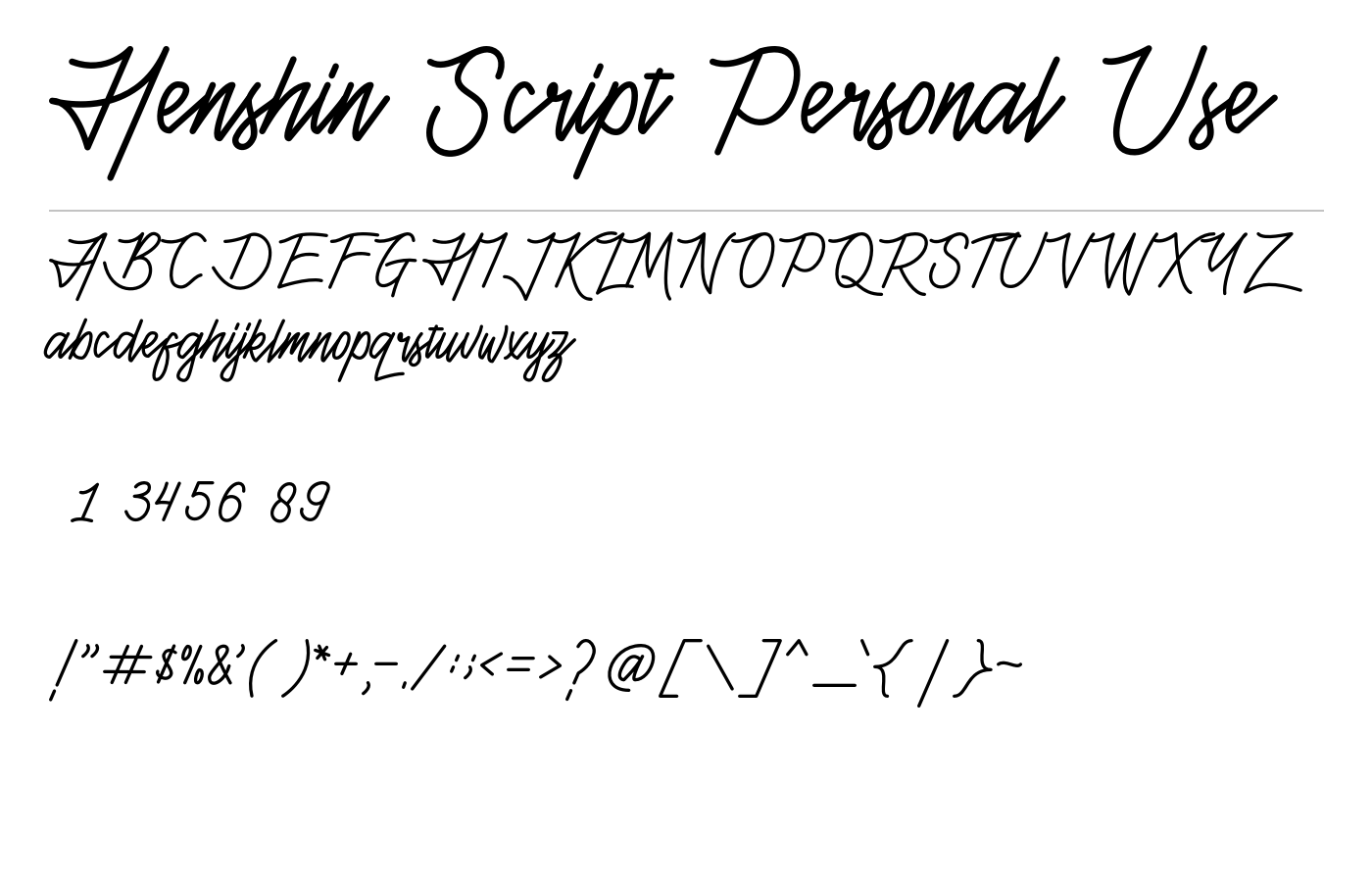
Henshin Font Duo is a sleek and stylish script font that showcases elegant, flowing letterforms with a personal handwritten touch. Its narrow, slightly slanted characters blend a casual yet refined personality, making it perfect for creative branding, invitations, and expressive headlines that need a warm and approachable feel. This font works well where a unique, handcrafted look is desired without sacrificing readability or sophistication.
Henshin Font Duo
About Henshin Font Duo
| Font family | Henshin Font Duo |
| Designer | Gumilang Anggara Ruslan |